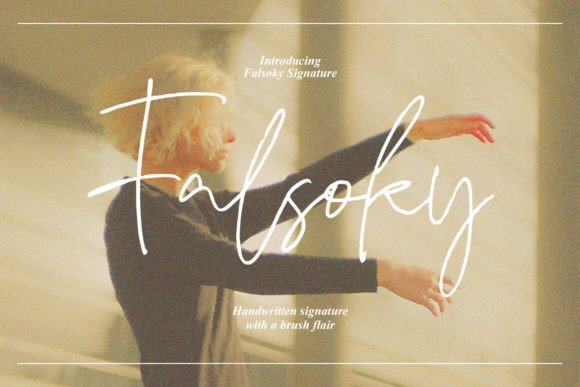
Unleash your creativity with Falsoky Font, the epitome of elegance and sophistication in the world of typography. This captivating script font, meticulously crafted by Tebaltipis.std, will transform your designs into breathtaking masterpieces.
Immerse yourself in the allure of Falsoky's meticulously crafted characters, each stroke imbued with a unique charm that dances across the page. Its handmade Signature style and decorative elements add a touch of whimsical beauty, perfect for adding a personal touch to your projects.
Falsoky's versatility knows no bounds. Whether you're designing enchanting invitations, heartfelt greeting cards, or sleek business cards, this font will elevate your creations to new heights. Its graceful lines add a touch of refinement to posters, quotes, and branding materials, leaving a lasting impression on your audience.
With over 250 glyphs at your disposal, Falsoky provides endless possibilities for customization. Experiment with a myriad of alternative characters, accessible through Open Type features like Swash, Stylistic Sets, Stylistic Alternates, and Ligature. Unleash your imagination and create designs that are as unique as your vision.
Falsoky Font is more than just a collection of letters; it's an artistic journey waiting to be explored. Embrace its captivating charm and watch your designs transform into works of art. Your creativity will flourish as you discover the endless possibilities that await you with Falsoky.
Don't settle for ordinary fonts. Choose Falsoky and embark on a creative adventure that will leave you spellbound. Elevate your designs to new heights and captivate your audience with typography that speaks volumes.